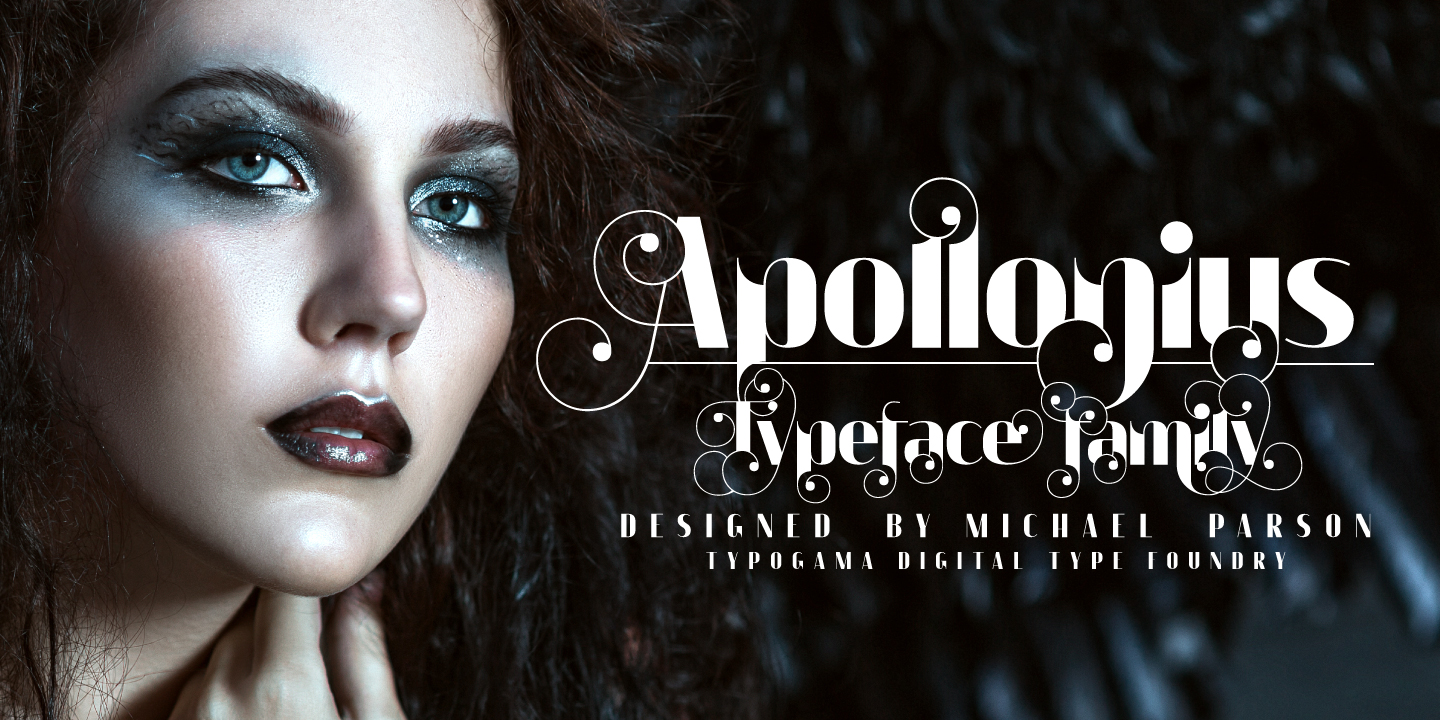
Searching for a typeface that combines classical elegance with modern versatility? Apollonius Font Free Download is a beautifully crafted serif font that adds sophistication and timeless charm to any project. Ideal for editorial designs, luxury branding, book covers, and formal invitations, this font blends tradition with contemporary style.
You can download Apollonius Font Free Download for free to test its refined letterforms and graceful curves. For commercial use, make sure to purchase the correct license to keep your projects professional and legally compliant. Its elegant serifs and balanced proportions ensure readability while delivering a high-end look.
Whether you’re designing for a premium brand, a cultural event, or an artistic publication, Apollonius Font Free Download brings a touch of classic grandeur and modern flair. The font’s versatile nature makes it a perfect fit for print and digital mediums alike.